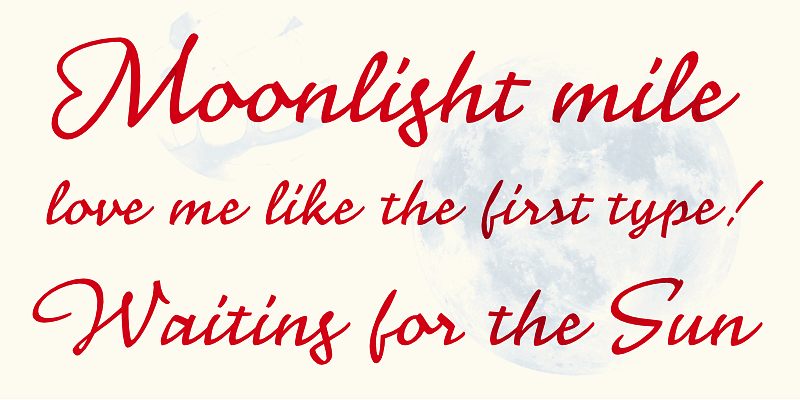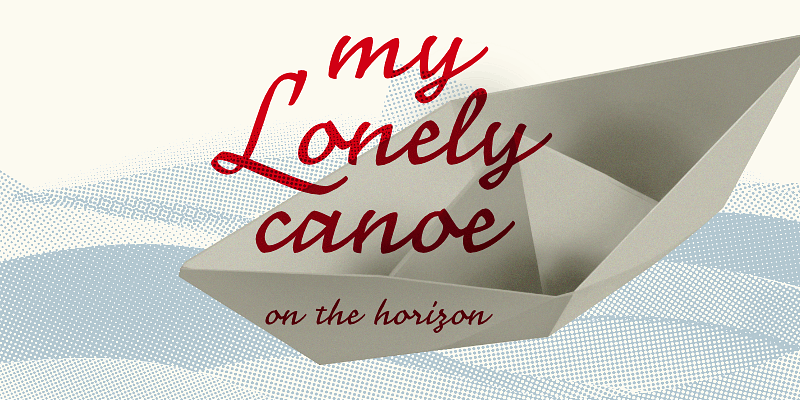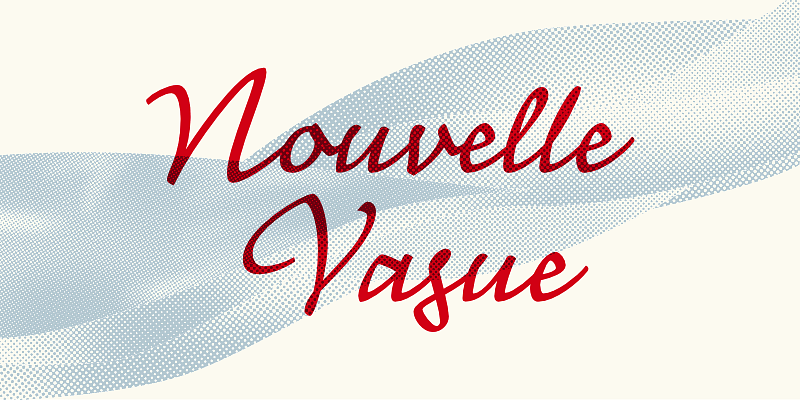
Nouvelle Vague is a display script typeface with a retro feeling and a distinguished look, defined by a steady rhythm, only broken by its offbeat and dynamic uppercase initials.